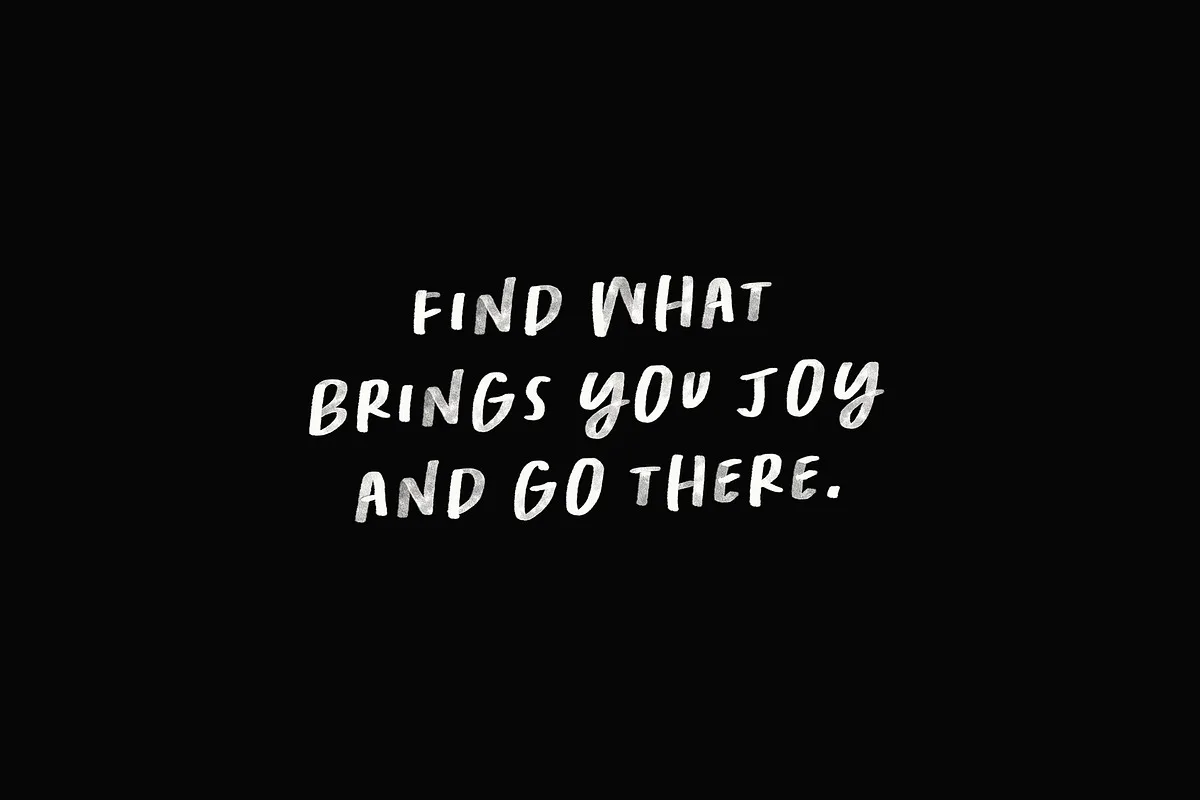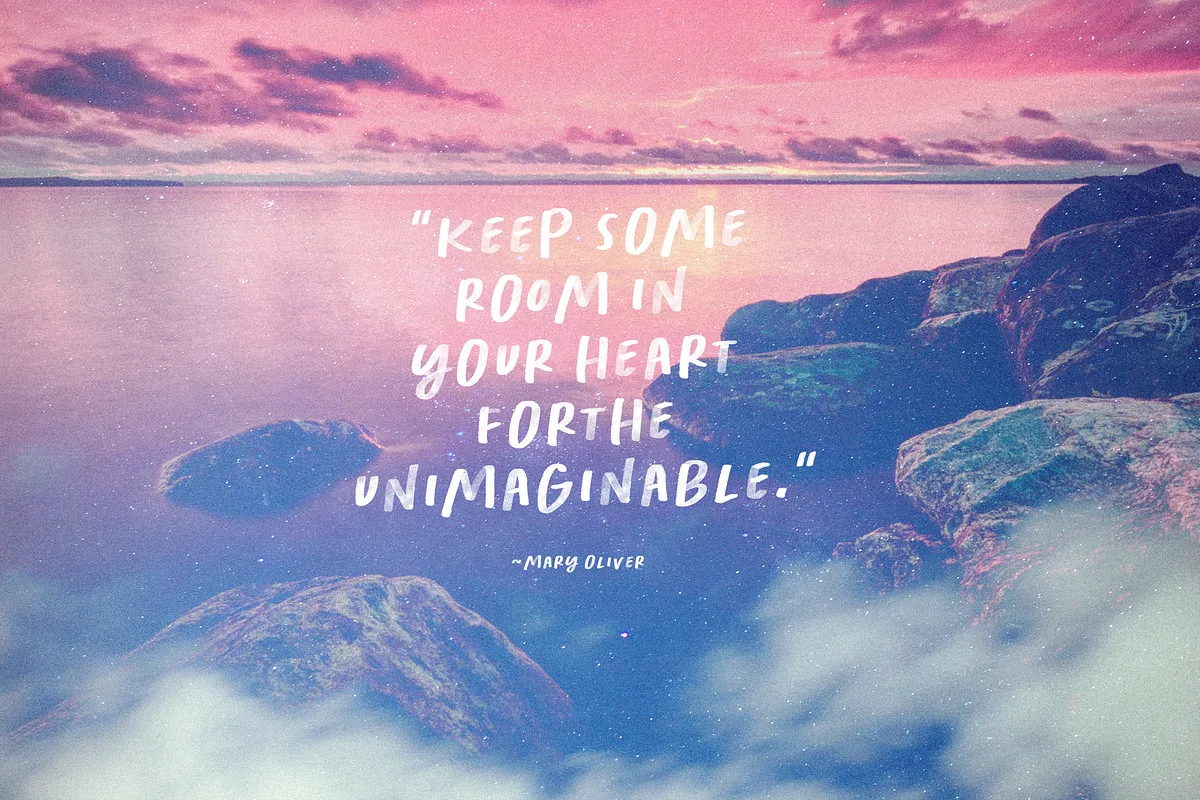
Kindness Matters is a quirky All-caps SVG font by Nicky Laatz with a built-in watercolor texture that looks so very real. For those of you without either of those – the regular font is also included. Perfect for quotes, posters, flyers, social media posts and so much more.
4 Handy ‘underlines’ are also included in the Glyphs set – you can access them via the Glyphs panel in Photoshop or by making sure you have your Ligatures on ( in your Character panel) and type out and of the four brackets on your keyboard : (), {}, [], and.
Also included are two bonus Photoshop Duotone Watercolour styles – one click to add real watercolour overlay to your SVG font which really makes it pop.